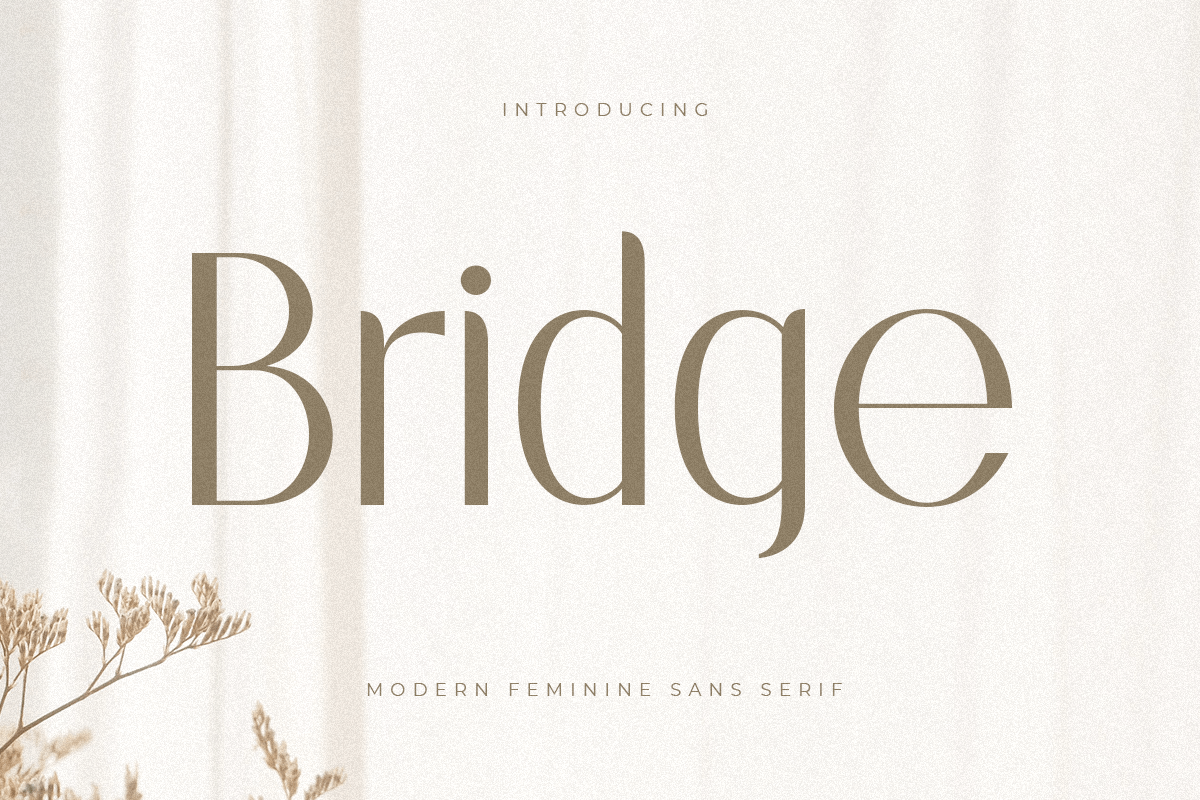
Bridge
A Sans serif that we created special for elegant branding needs, with extra ligatures in unique shape will be ready to add value of your brand. It so nice to leverage designer or product owner that need solutions to make their design look more classy and modern. And specially for this font, We prepared any ligatures characters to help you create unlimited variations for your creative needs.
Bridge Sans serif font ready with:
Any options to get creative variations (combination of Ligatures)
Preview as a inspirations that you can do with Bridge font